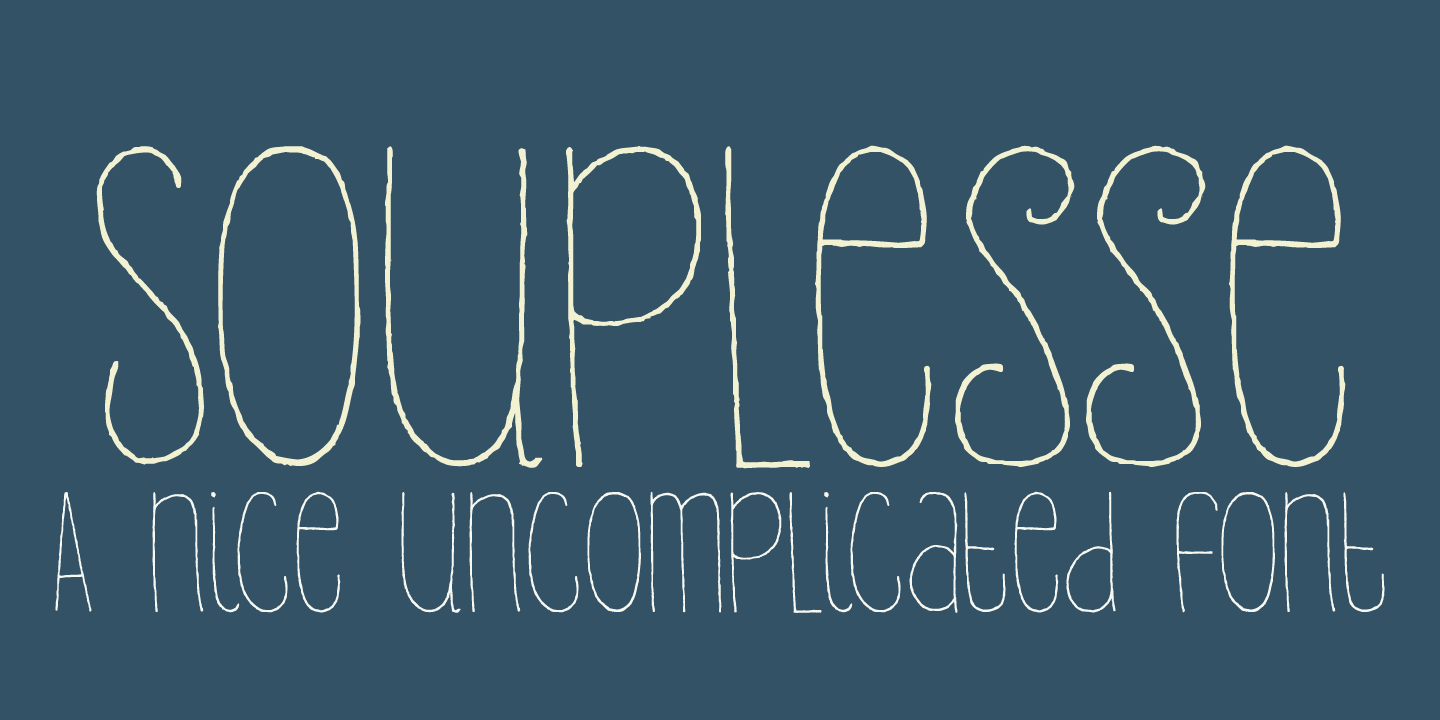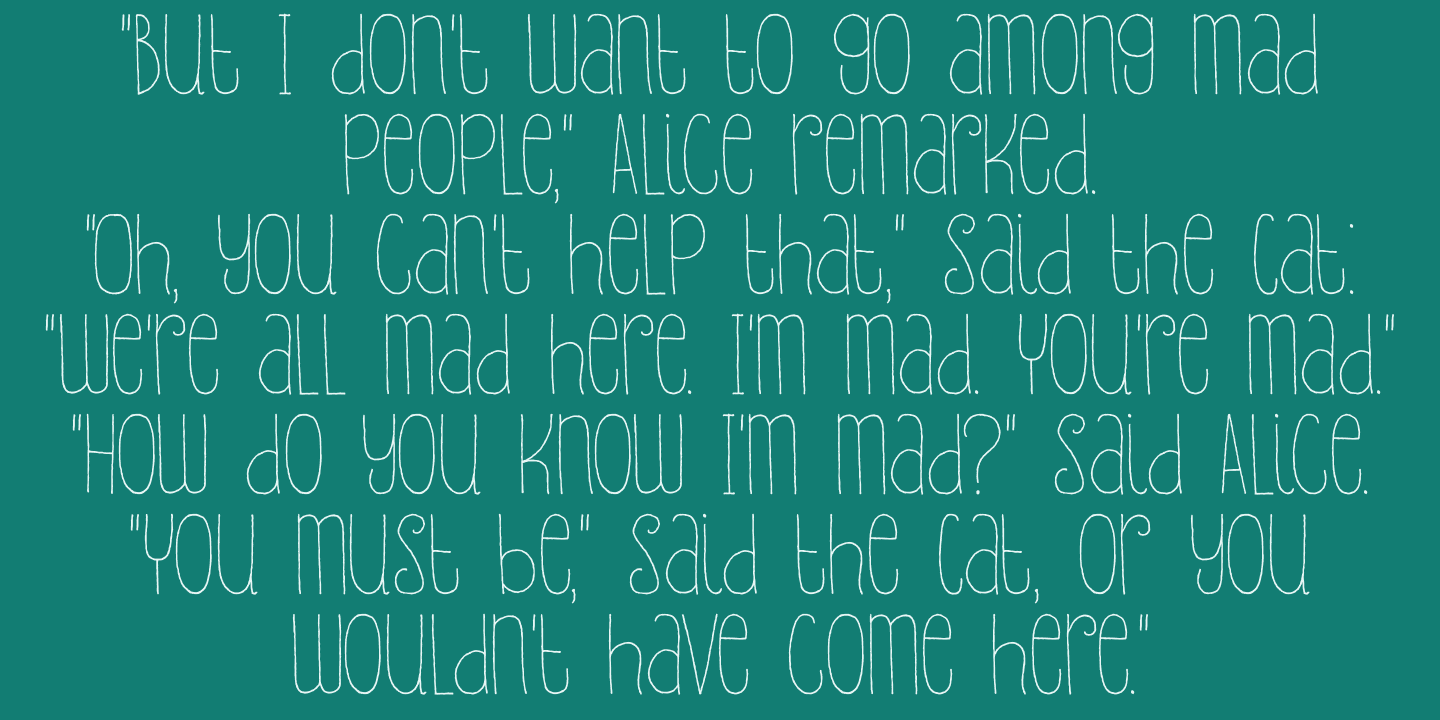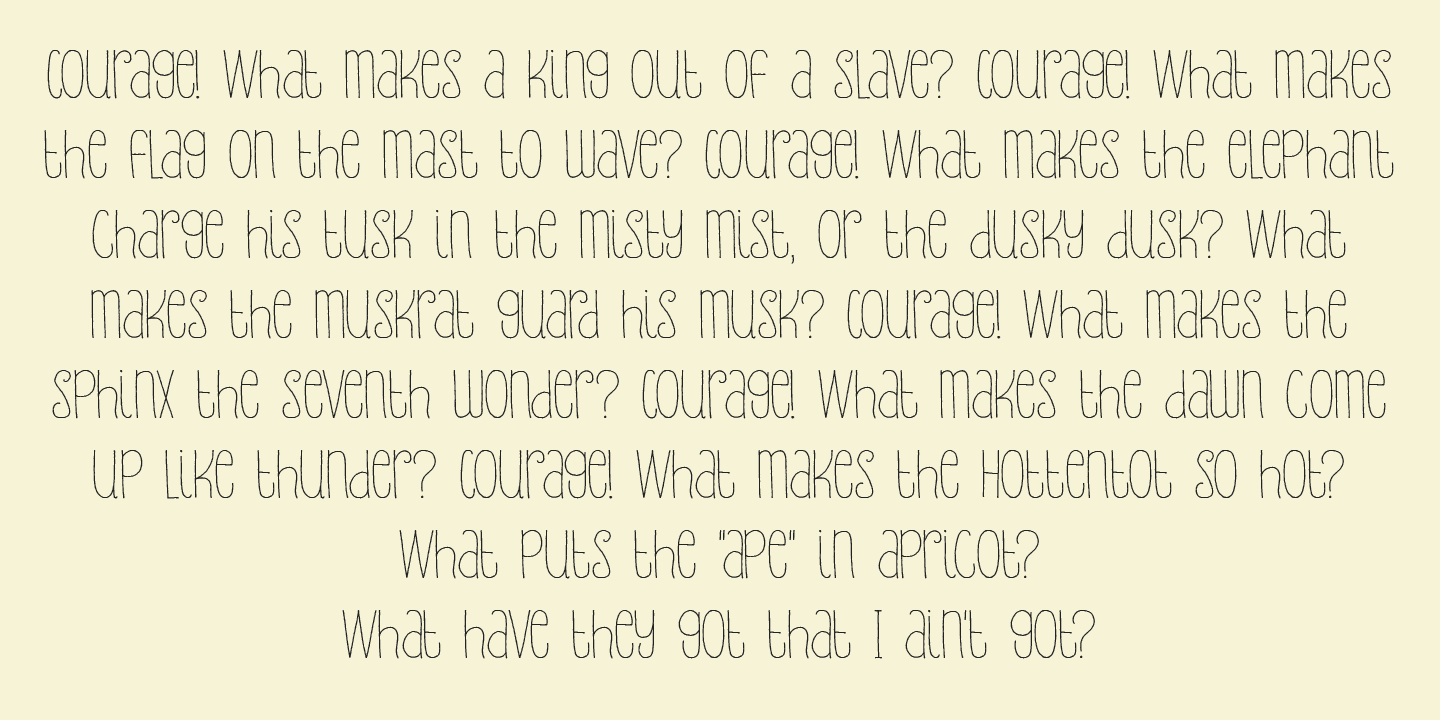
Souplesse
Font Family by Hanoded
Souplesse (flexibility in French) is a nice, uncomplicated typeface; happy beyond words, yet with a bit of a bite. The glyphs have a rough edge, yet remain very legible. Souplesse comes with a bagful of diacritics.